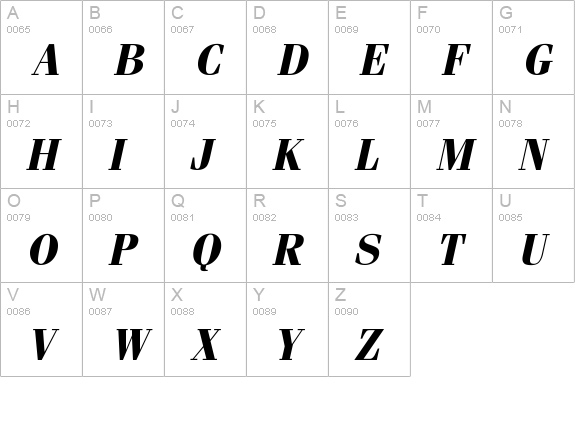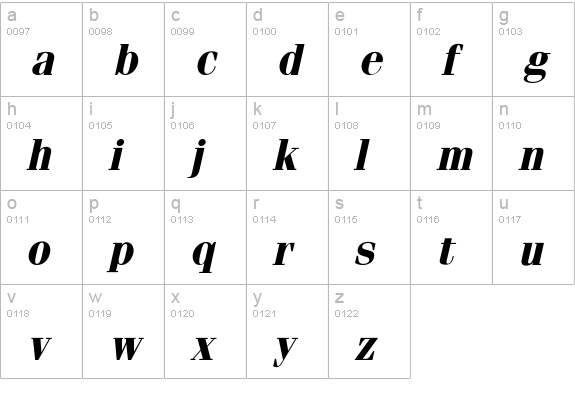
FeniceBoldItalic Font Details
FeniceBoldItalic font is a beautifully crafted typeface that exudes elegance and sophistication. Its bold and italicized design adds a touch of modernity to any project, making it perfect for both professional and creative endeavors. This stylish font is sure to make a statement and capture the attention of your audience. What sets FeniceBoldItalic font apart is not only its stunning appearance but also the fact that it is available for free download at FontsMarket.com. This means that you can easily access this premium quality font without any cost, making it a valuable asset for designers, students, and anyone in need of a high-quality typeface. With FeniceBoldItalic font, you can elevate your designs and bring your creative vision to life with ease.